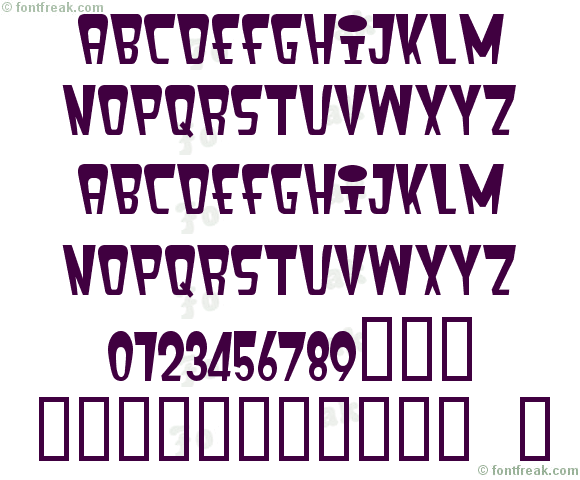
fenix header
Fenix Header, designed by Grafito Design in 2002, is a striking display font that captivates with its bold, geometric style. As a decorative typeface, it features a unique blend of thick and thin strokes, offering a modern yet playful aesthetic. The contrast between the heavy weight and the airy spacing creates an engaging visual rhythm that draws attention. Its distinctive rounded edges and angular forms make it ideal for any project that requires a strong visual impact.
This font is particularly well-suited for a variety of creative applications. Its bold presence makes it an excellent choice for movie posters, where capturing attention is essential. Additionally, Fenix Header can bring life to restaurant menus, adding a contemporary flair that enhances the dining experience. Graphic designers will find it beneficial for branding projects, as the font's unique character can help convey a brand's identity effectively. It also works wonderfully for event flyers, where its playful nature can attract potential attendees. Small business owners looking to create eye-catching promotional materials will appreciate the versatility and charm of this typeface.
What sets Fenix Header apart is its ability to combine functionality with personality. It stands out in a crowded market of fonts by offering a distinctive look that can elevate any design. For those interested in exploring this unique typeface, the Fenix Header font free download provides an excellent opportunity to incorporate a bold, modern aesthetic into various creative endeavors.